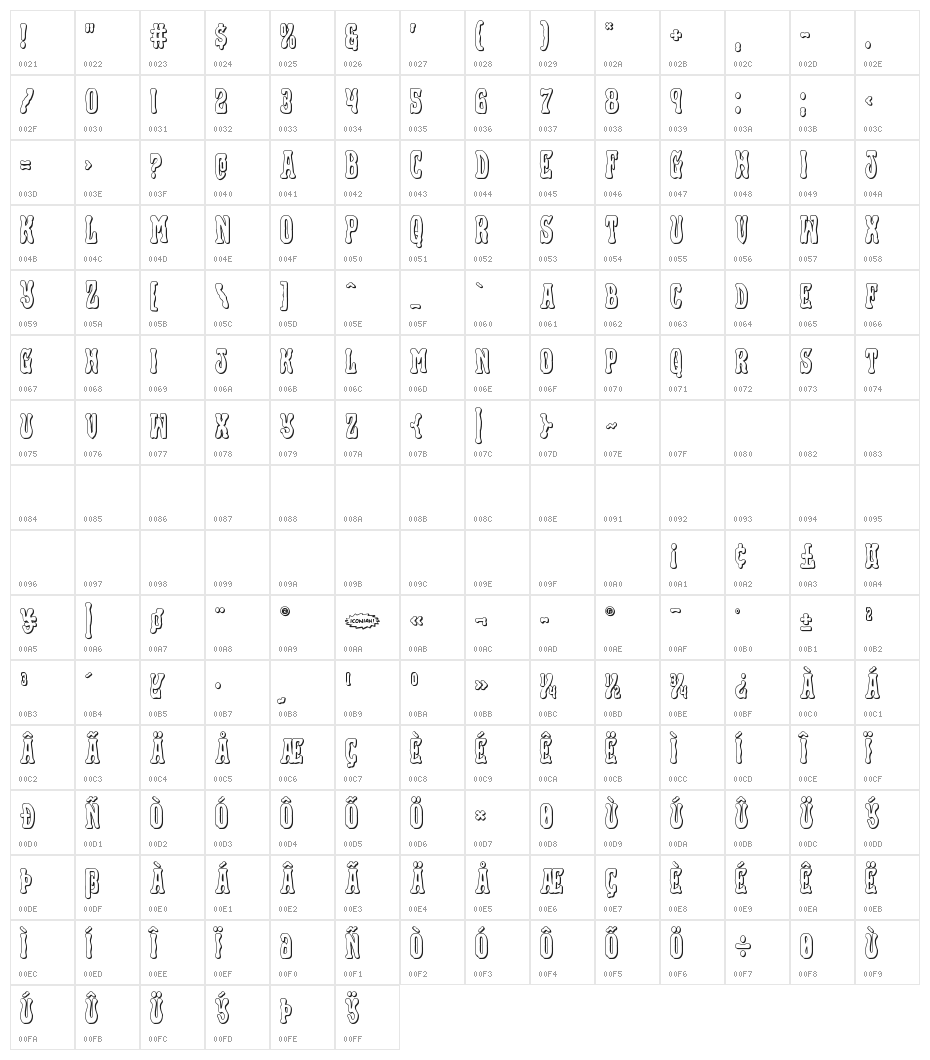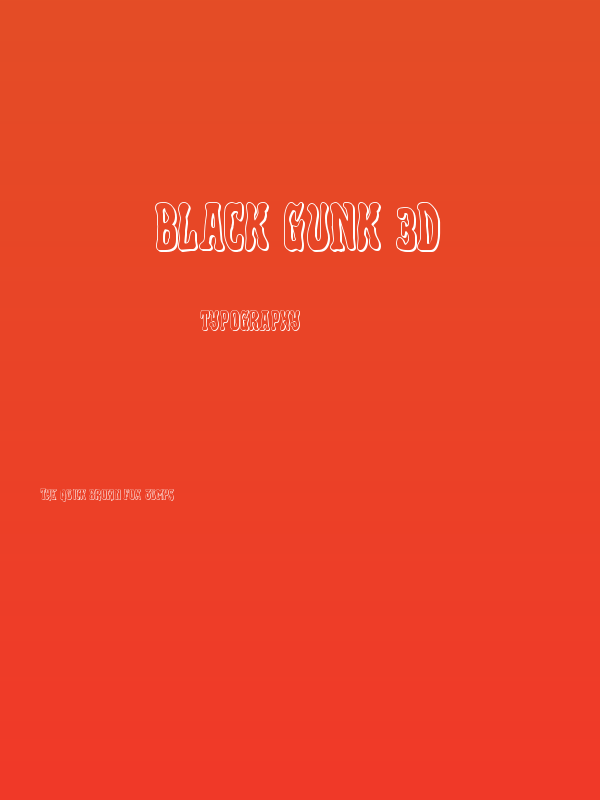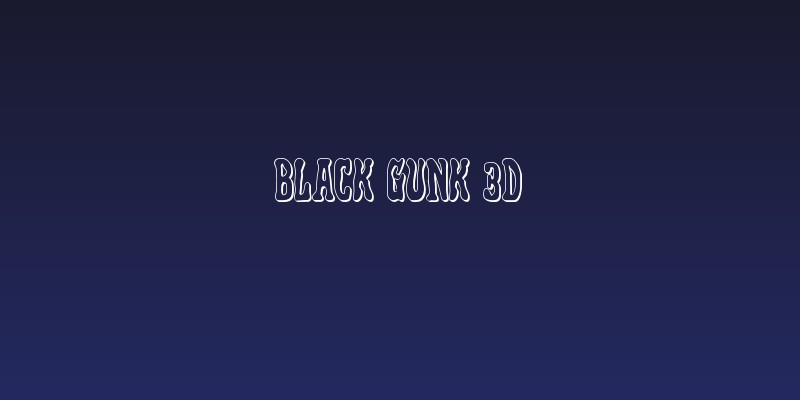
Black Gunk 3D Font
Black Gunk 3D Description
This font features a bold, playful design with a 3D effect that gives it a unique, eye-catching appearance. The letters are outlined with a thick, irregular stroke that creates a sense of movement and fluidity. Each character appears to be slightly melting or dripping, adding to its quirky and dynamic style. The font maintains a consistent weight throughout, with rounded edges that soften its overall look. It is highly decorative and stands out due to its unusual form, making it ideal for creative and artistic projects.